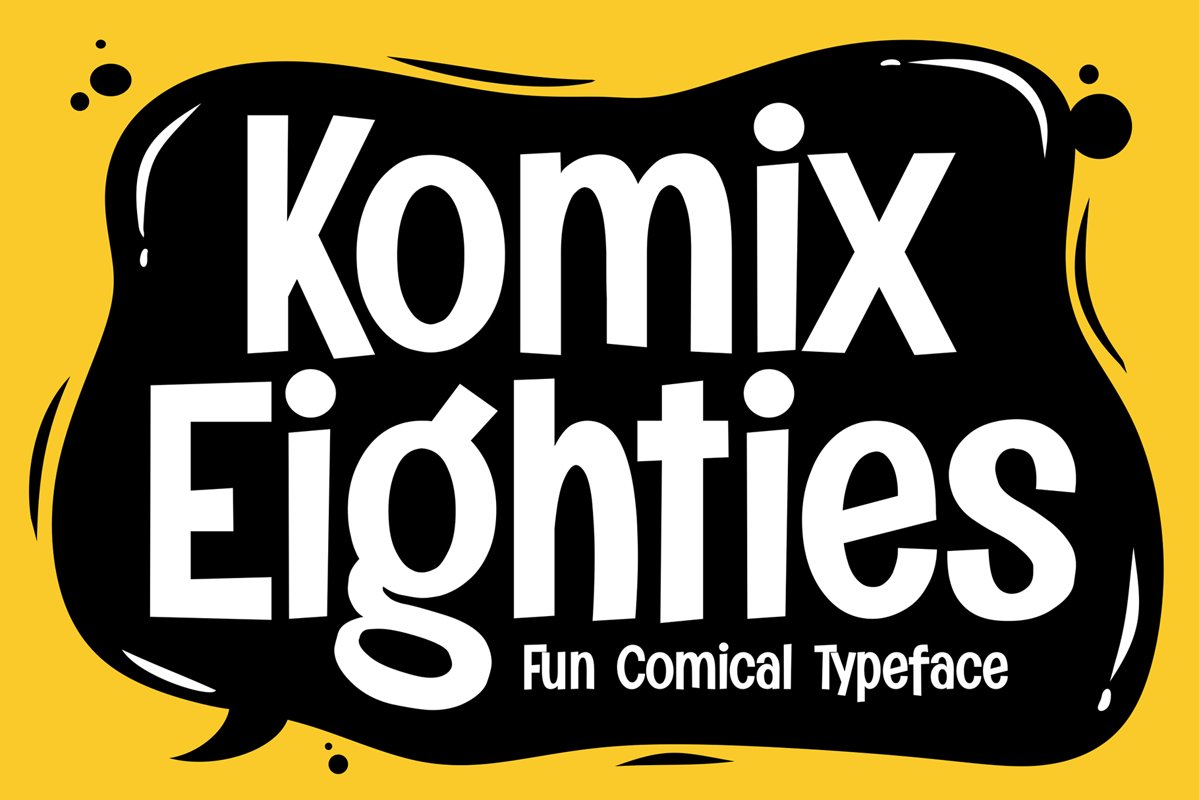
Komix Eighties
Say hello to Komix Eighties font.
Made with love and joy. Comic look, so it will make your design more beautiful, cute, fun, and colorful. It comes With three awesome styles.
• Character Set A-Z (All-caps)
• Numerals and Punctuation (OpenType Standard)
• Accents (Multilingual characters)